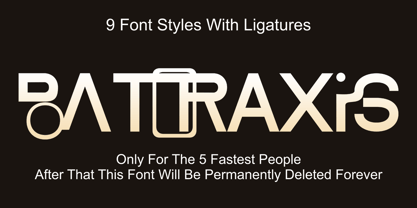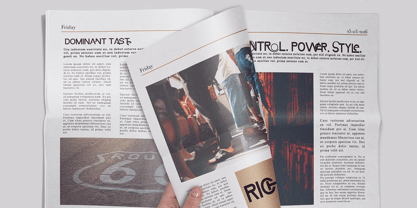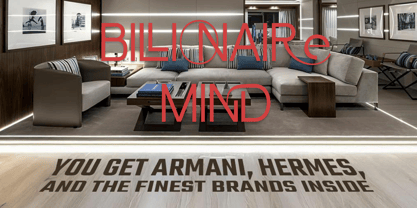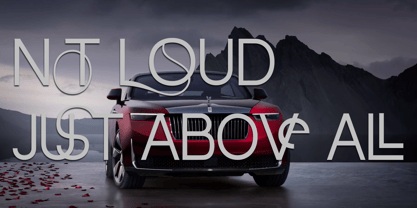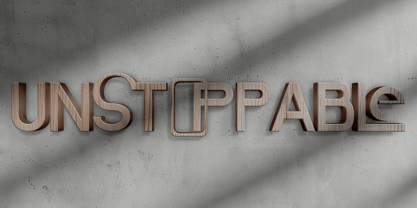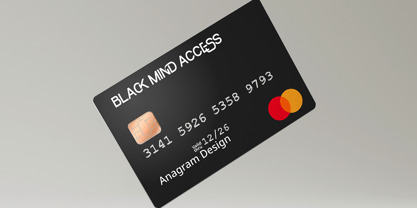
Batoraxis
von Zaki Creative
Die Schriftfamilie Batoraxis wurde von Teuku Muhammad Zaki entworfen und von Zaki Creative veröffentlicht. Batoraxis enthält 9 Stile und Familienpaketoptionen.
BATORAXIS is not just a font — it is a forbidden legacy carved from the shadows of erased empires. The name comes from a secret Byzantine military code: Bato, meaning “the one-strike executioner,” and Raxis, “the axis of the world.” First recorded in 1047 AD under Emperor Constantine IX, it was reserved only for five shadow generals whose decisions rewrote the fate of wars and rulers. For centuries, it vanished — until a forbidden 1938 occult expedition uncovered its seal beneath the Black Sea, engraved on a black monolith said to bend the fabric of reality. Today, BATORAXIS returns, reborn as a luxurious, brutal typeface for the elite few. Only 5 designers will ever own it. After that, it will be destroyed forever. This is not a purchase. This is the claiming of power that was never meant to resurface.